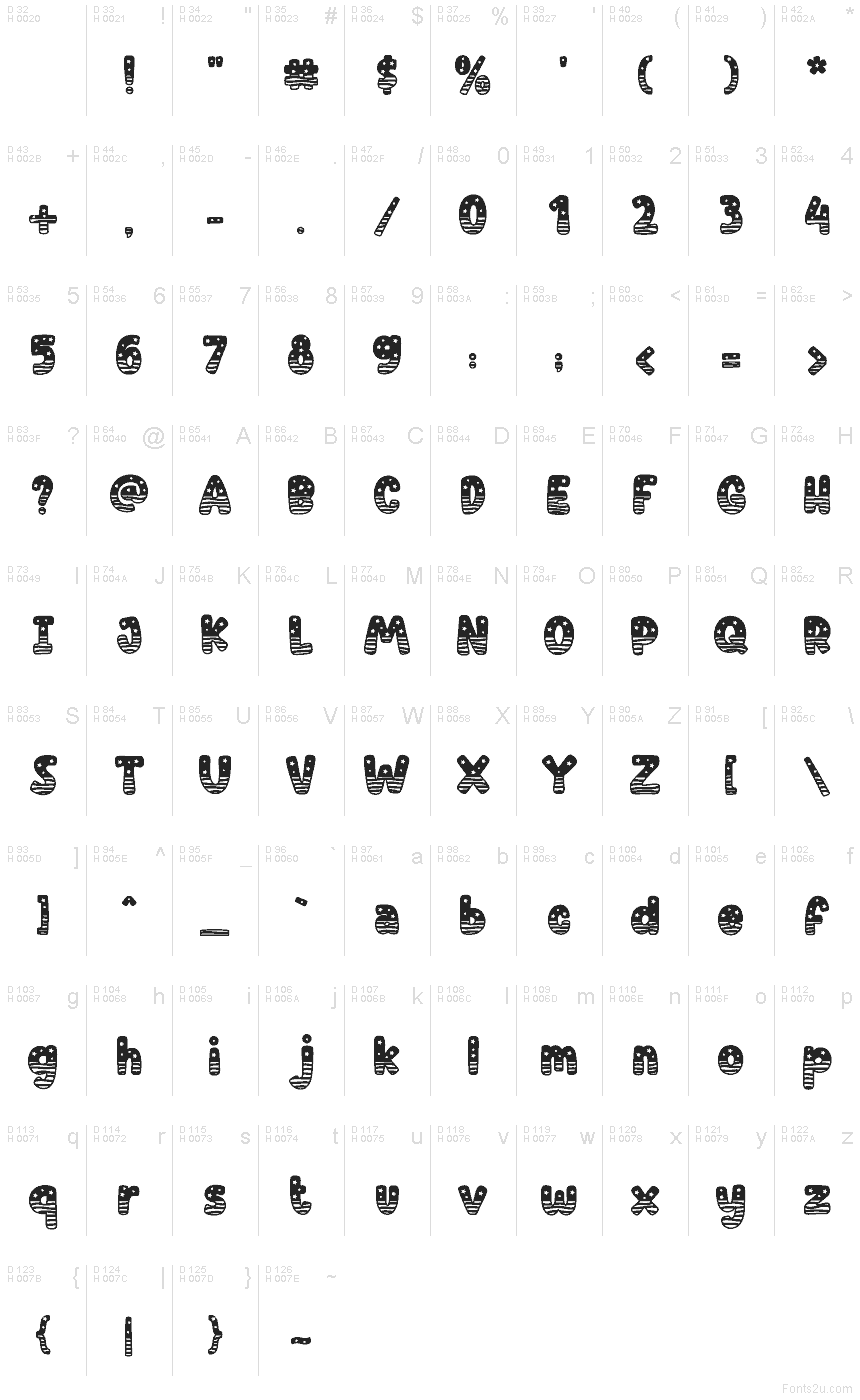
UNITED AMERICA
United Smerica font by Mozatype is a free decorative display typeface that packs the flag right into each letter. Thick, rounded forms carry bold stars and wavy stripes, creating a lively ripple effect that feels loud, festive, and unmistakably patriotic. The texture reads like inky banners unfurling—high-impact at a glance, still legible up close.
Using United Smerica, headlines grab attention on event posters, parade banners, party invites, T‑shirts and merch, social posts, signage, and stickers. The internal rhythm of stripes keeps energy high while the chunky shapes hold together in big sizes. For balance, pair this free font with a plain, modern sans serif and keep supporting text smaller and clean.